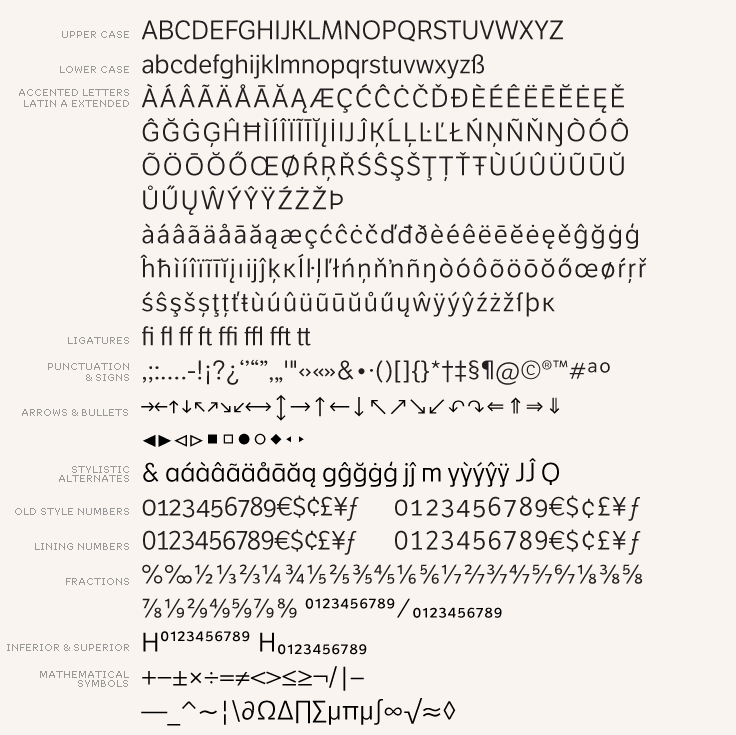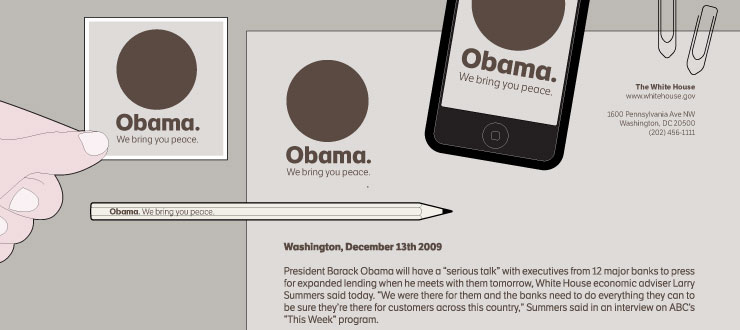
Etica, the-moralist-typefamily-project, was born at the end of 2000, but its development is ongoing, overcoming many hurdles and diversions. On one hand, the original idea was spurred by a certain esteem for Helvetica, in particular, its strength and versatility, and on the other, an intolerance to its plenty but inadequate applications; created by those who erroneously consider it to be a neutral and timeless design.
We believe that Helvetica is a beautiful typeface, but very deeply rooted in its own era. It is often unsuitably used in contexts that have changed profoundly since its birth. From this initial intention, we coined the ironic payoff ‘The-Moralist-Typeface’.
The challenge was to obtain the same force, versatility and colour that are, from our point of view, Helvetica’s greatest qualities. The same proportions have been maintained, albeit with slightly reduced letter width. The resulting design has soft strokes, open counters and terminals; aesthetically resting somewhere between a grotesque and humanist sans serif. It successfully combines masculine force with female delicacy.
Etica’s wide range of styles, together with a large character set and OpenType features, such as 4 sets of numerals,
fractions, several stylistic alternates and a set of arrows and dingbats, allows for a vast variety of applications, be they editorial or corporate. | Get the complete bundle | | More purchasing options |